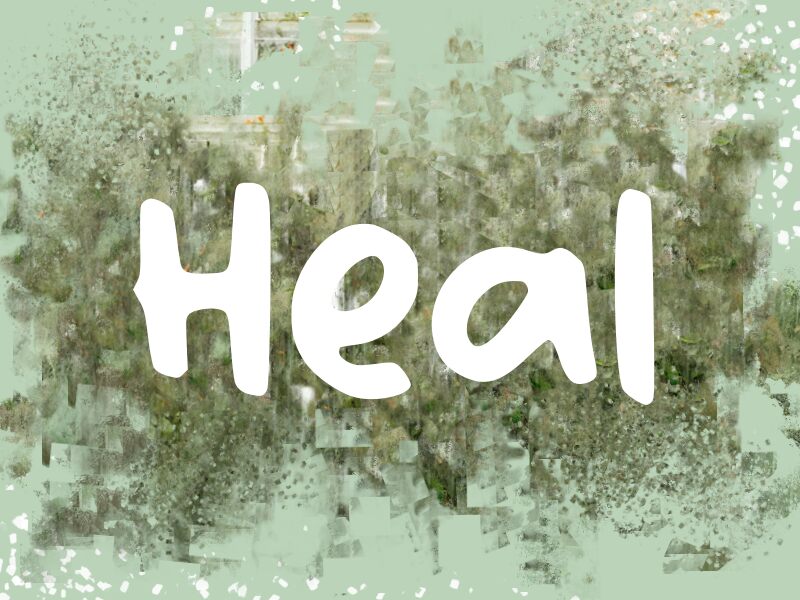
Heal
Heal font is a bold display typeface designed by wep. It features a playful, rounded, and friendly look with retro-inspired characters. The informal and approachable design makes it great for impactful projects that require an element of fun and laid-back style.
Create kids’ book covers, movie posters, or album art for your band. Design social media posts or eye-catching headings for your website with this free font. Experiment by designing branding projects like logos, labels on clothing lines, or even entire packaging systems for food products. Use in promotions and marketing collateral, flyers, posters, and more!